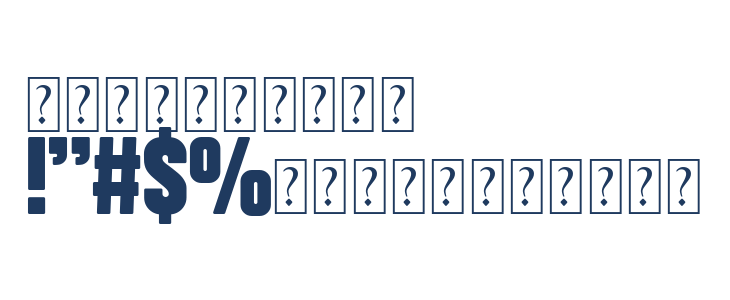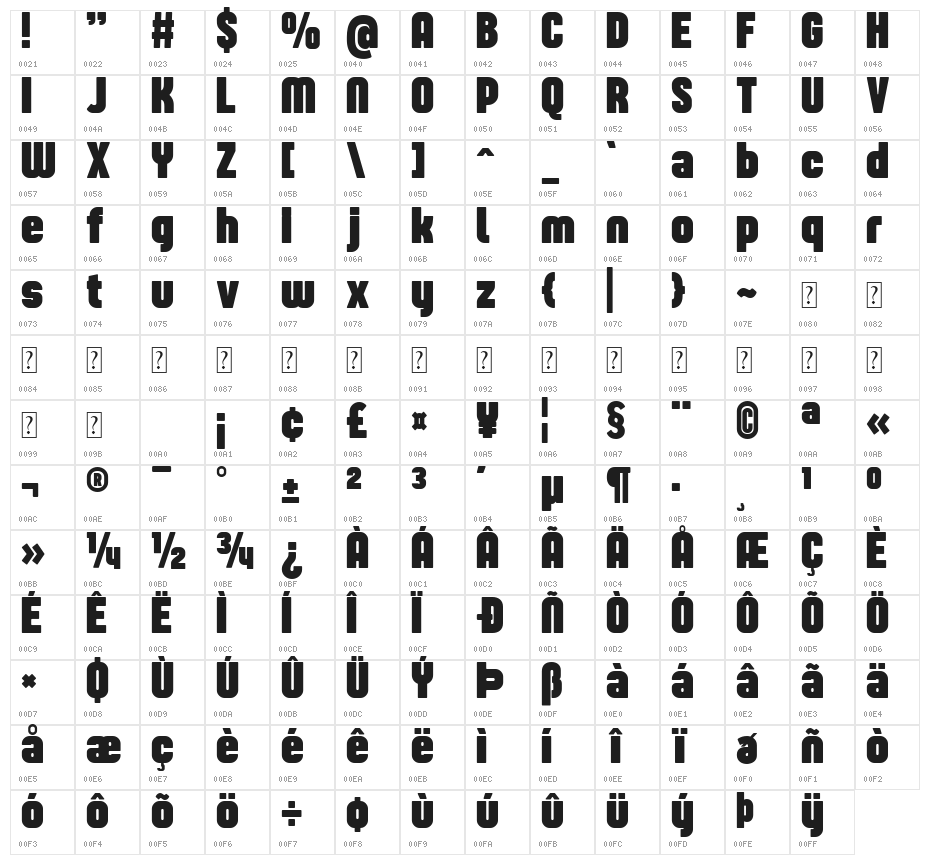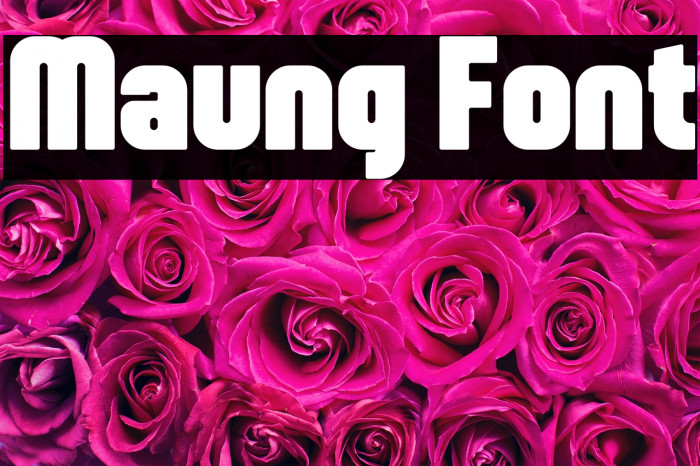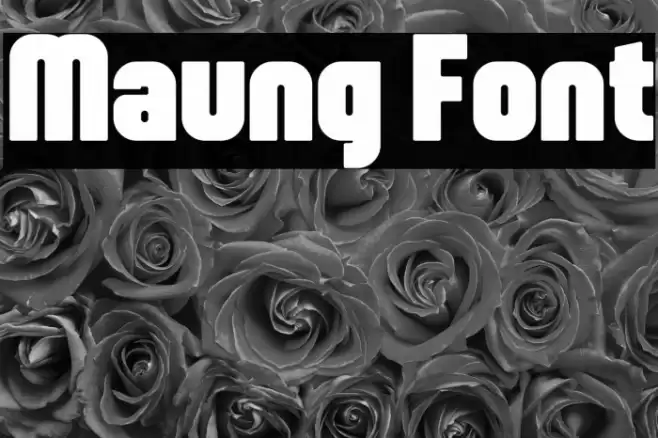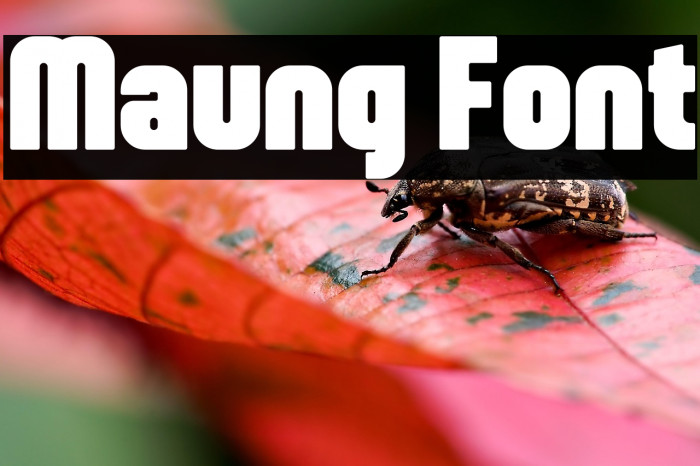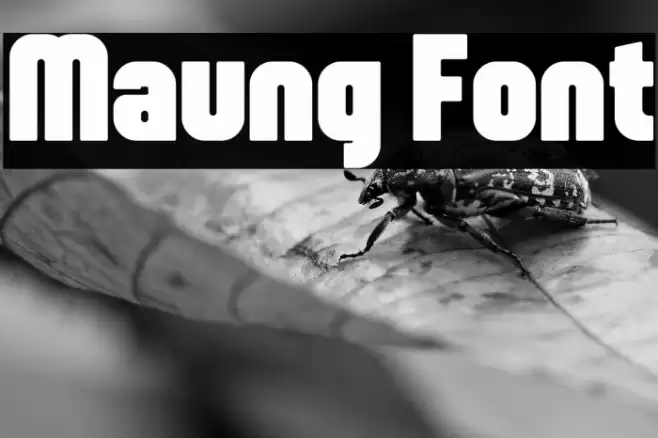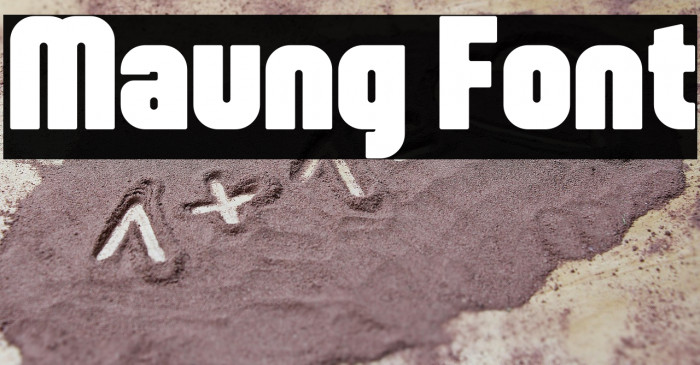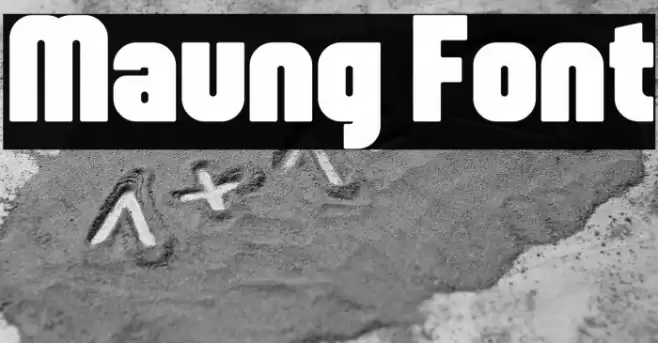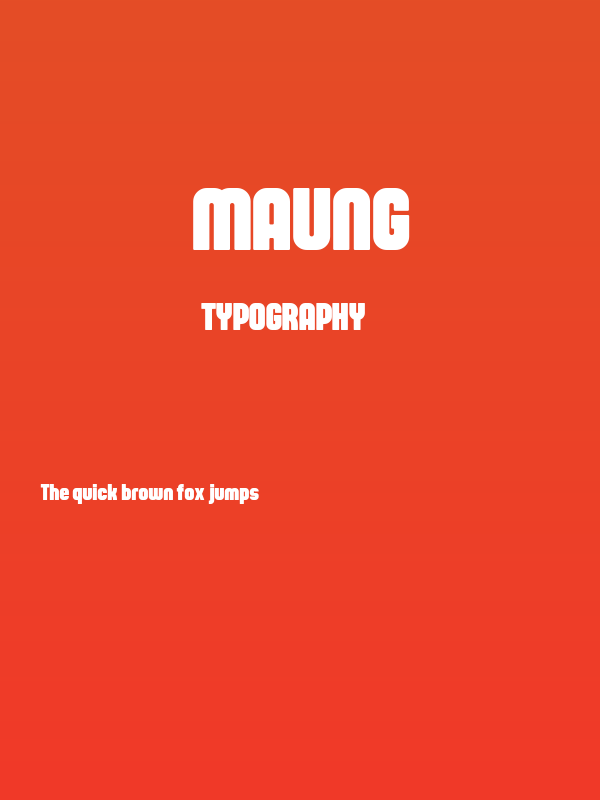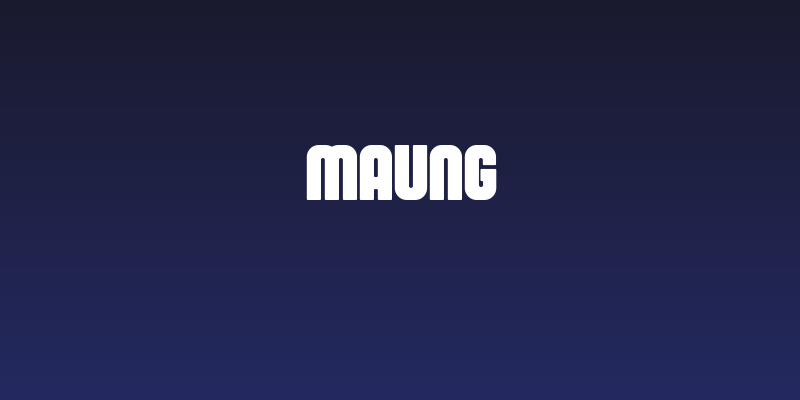
Maung Font
Maung Description
This font features bold, blocky characters with a strong presence, making it ideal for impactful headlines and attention-grabbing designs. The uppercase and lowercase letters maintain a consistent weight, contributing to a uniform appearance. The characters are tightly spaced, enhancing the boldness and compactness of the text. The font includes a full set of uppercase and lowercase letters, numerals, and a selection of special characters, ensuring versatility in various design applications. Its thick strokes and minimal contrast between thick and thin lines give it a modern, robust look, suitable for digital and print media.
Proposed ProjectsIdeal for headlines, posters, branding, and any design requiring a strong visual impact.